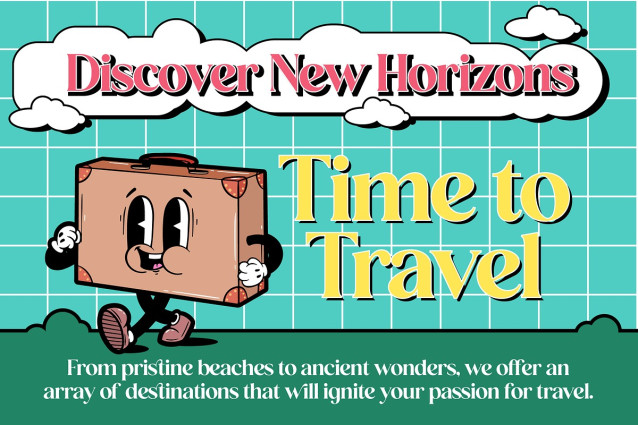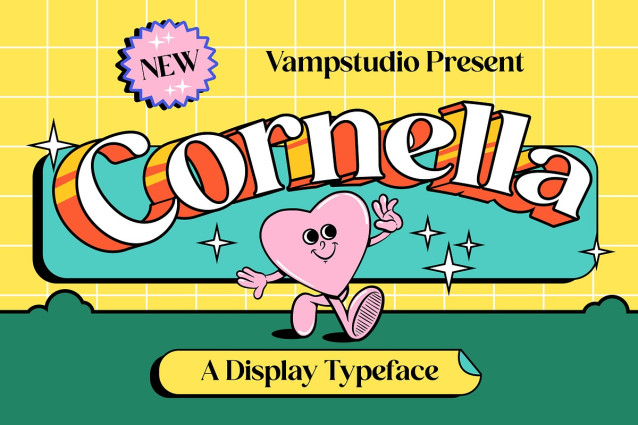
Cornella Font
Cornella Font – Embrace the Playful Nostalgia of the 90s with this Retro-Inspired Display Font!Step into a world of fun and nostalgia with “Cornella,” a playful display font that captures the vibrant essence of the 90s. Get ready to infuse your designs with retro charm and a dash of whimsical flair.